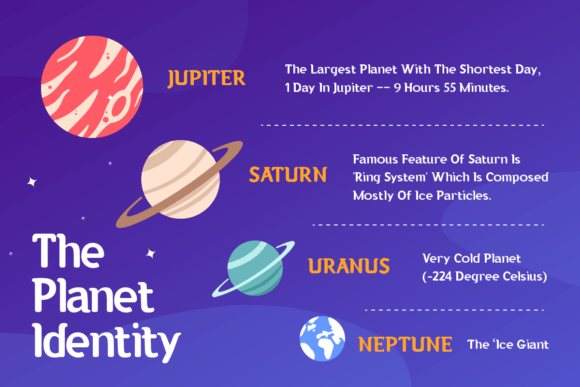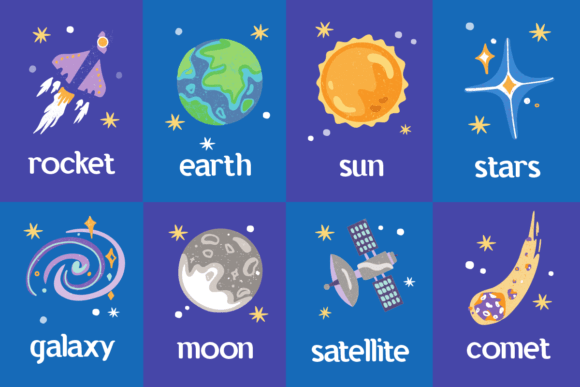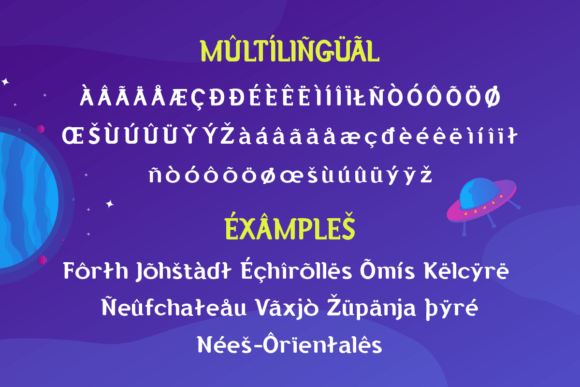
Discover the Perfect Blend of Retro and Modern with Kluaq Font
As a designer, you’ve probably experienced that moment when a single font can elevate an entire project from ordinary to extraordinary. For me, it was when I stumbled upon Kluaq Font – a quirky, playful, and professional typeface that instantly sparked a burst of creativity. With its unique blend of vintage charm and modern flair, Kluaq Font has become my go-to choice for designs that demand attention and personality.
Kluaq Font is the perfect solution for designers seeking a versatile and eye-catching typeface. Whether you’re creating logos, branding, packaging, or advertising materials, Kluaq Font’s quirky style is sure to make your designs stand out from the crowd. Its value lies in its ability to add a touch of personality and charm to any project, making it an invaluable asset for designers who want to take their work to the next level.
Kluaq Font Key Features
- Font Family: Kluaq is a sans-serif font family, designed for clear and modern typography.
- Character Set: Supports a comprehensive character set, including Latin, Cyrillic, and Greek alphabets, as well as various punctuation and symbol sets.
- Unique Characteristics: Kluaq features a unique geometric shape and subtle rounded edges, giving it a modern and sophisticated look.
Kluaq Font Review
I had the chance to work with the Kluaq font, and I must say it’s a unique and interesting choice. ✨ Here are some things that work well:
- ✨ Distinctive design: The Kluaq font has a clear and bold design that can help your text stand out.
- ✨ Wide range of languages: This font supports a wide range of languages, making it a great choice for international projects.
- ✨ Good for headlines: The Kluaq font is particularly well-suited for headlines and titles due to its bold and eye-catching design.
However, like any font, the Kluaq font also has some limitations:
- ⚠️ Limited legibility at small sizes: While the font is bold and eye-catching, it can be difficult to read at very small sizes.
- ⚠️ Not ideal for body text: Due to its bold design, the Kluaq font may not be the best choice for body text, as it can be tiring to read in large quantities.
Overall, I think the Kluaq font is a great choice for specific projects where you want to make a bold statement. However, it may not be the best choice for projects that require a lot of body text or very small font sizes.
To get the most out of the Kluaq font, use it sparingly and strategically to add visual interest to your designs.
Pair the Kluaq font with other fonts to create a unique and eye-catching typography.
Experiment with different font sizes, colors, and styles to create a cohesive look.
The Kluaq font is ideal for:
Creating eye-catching headings and titles.
Adding visual interest to presentations and documents.
Designing custom graphics and logos.
Alternatives to Kluaq Font for Designers
Playfair Display is an elegant, high-end serif font that works well for luxury brands, high-end products, and formal invitations. It’s perfect for designers who want to create a sophisticated and refined look. Compared to Kluaq Font, Playfair Display has a more traditional and classic feel, while Kluaq Font is more modern and unique.
Great Vibes is a beautiful, handwritten script font that’s ideal for creative projects, branding, and advertising. It’s great for designers who want to add a touch of personality and whimsy to their designs. Compared to Kluaq Font, Great Vibes has a more casual and relaxed feel, while Kluaq Font is more edgy and avant-garde.